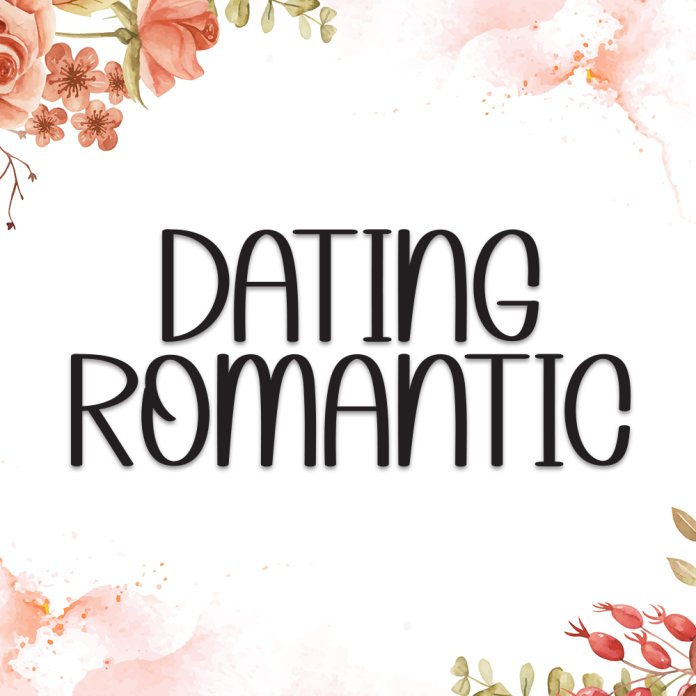
Dating Romantic is a stylish and graceful display font that captures the warmth and excitement of love and connection. With its soft curves, charming ligatures, and romantic flair, this font is perfect for designs that aim to evoke feelings of intimacy and elegance.
Whether you're creating wedding invitations, Valentine's Day cards, romantic social media posts, or branding for a love-inspired product, Dating Romantic adds a touch of timeless beauty and charm.
Elegant and romantic display style
Perfect for weddings, love quotes, and branding
Delicate curves with a refined finish
Includes uppercase, lowercase, numerals & symbols